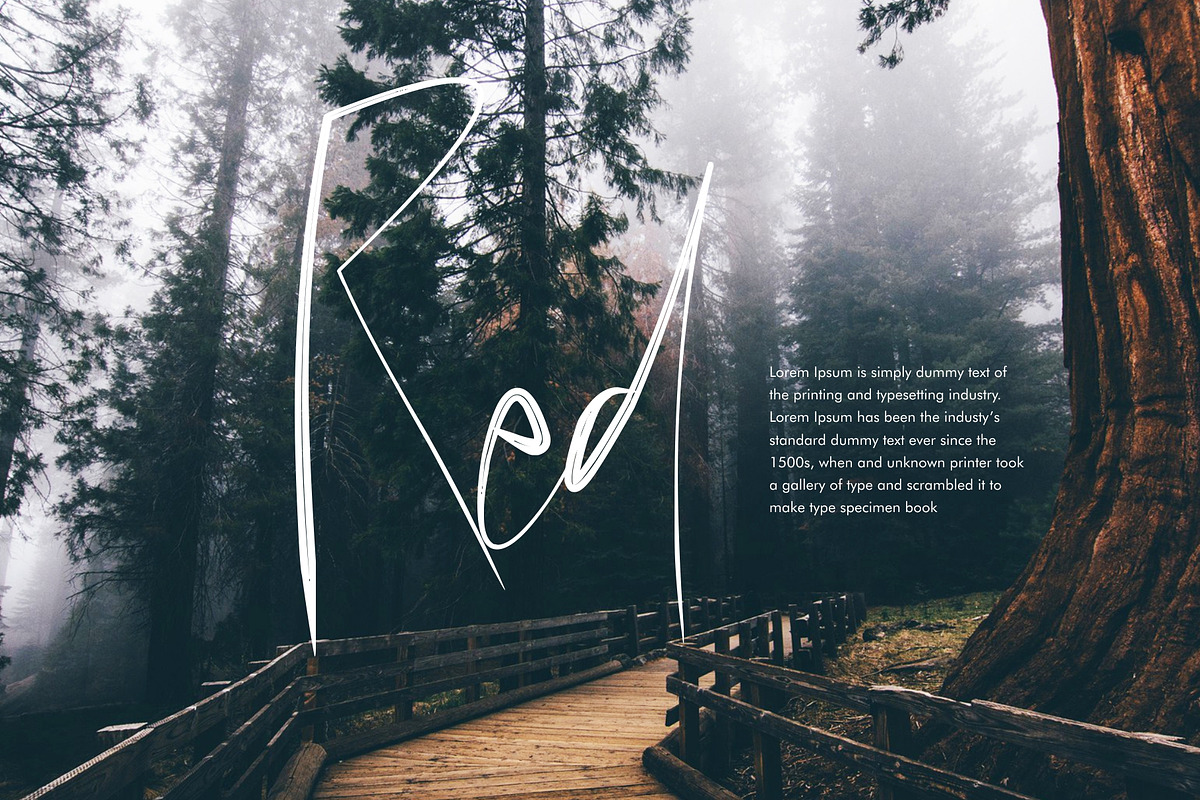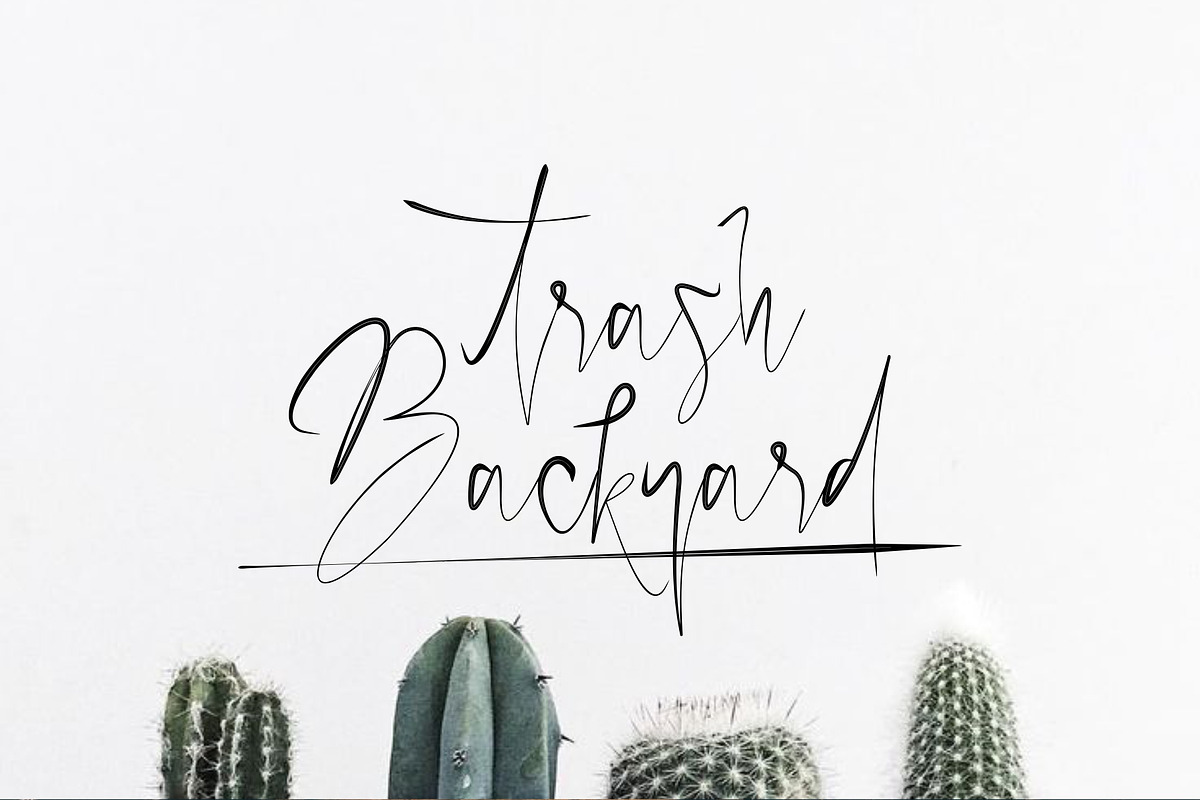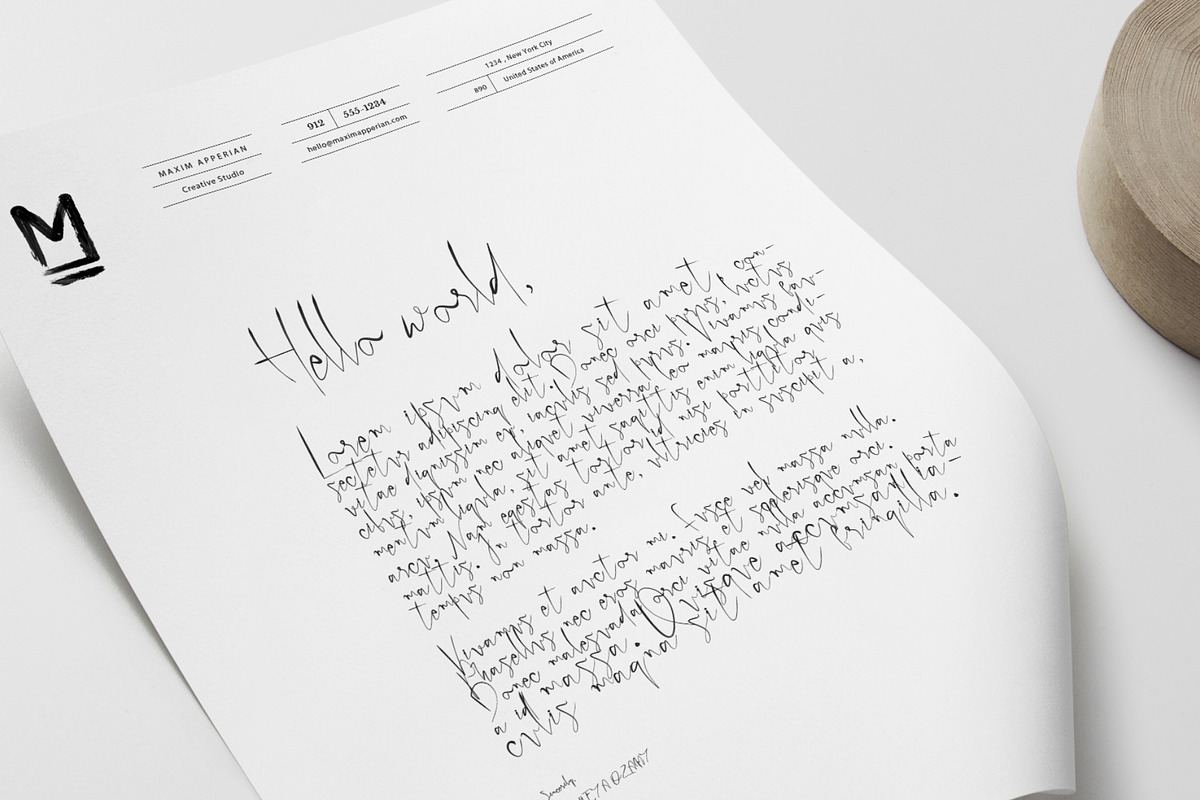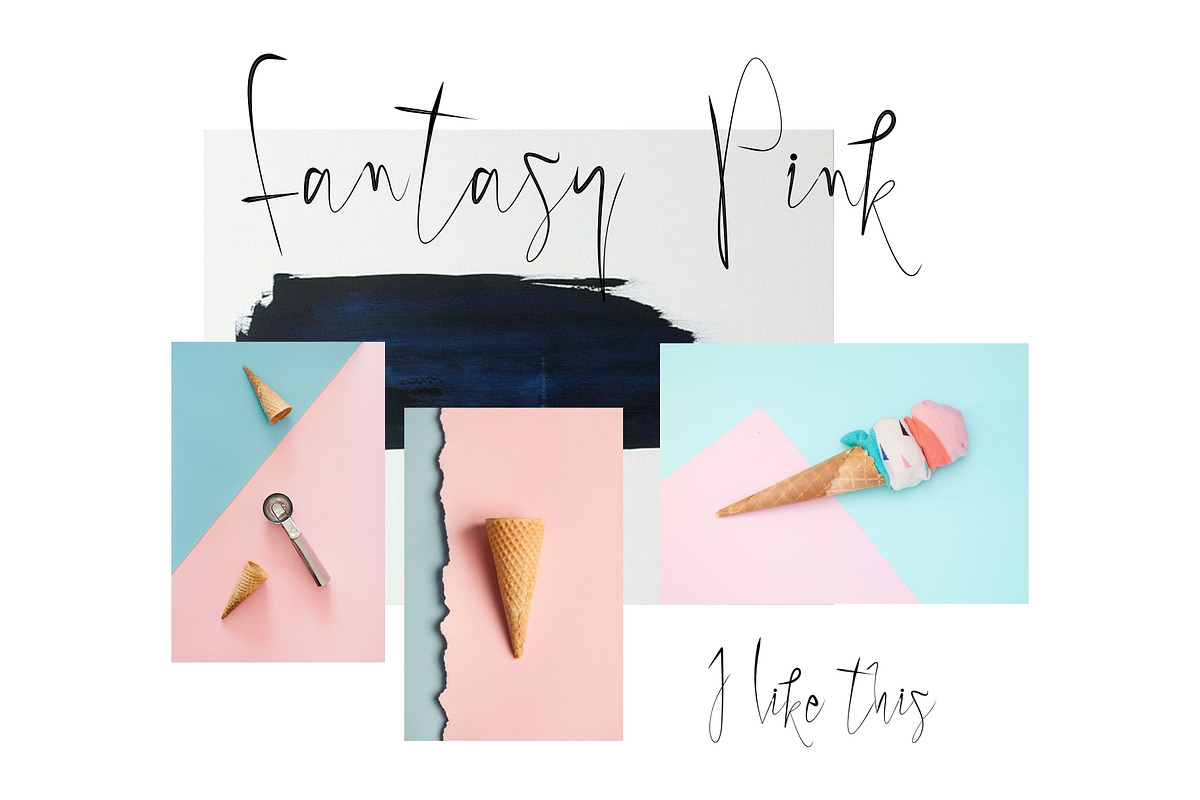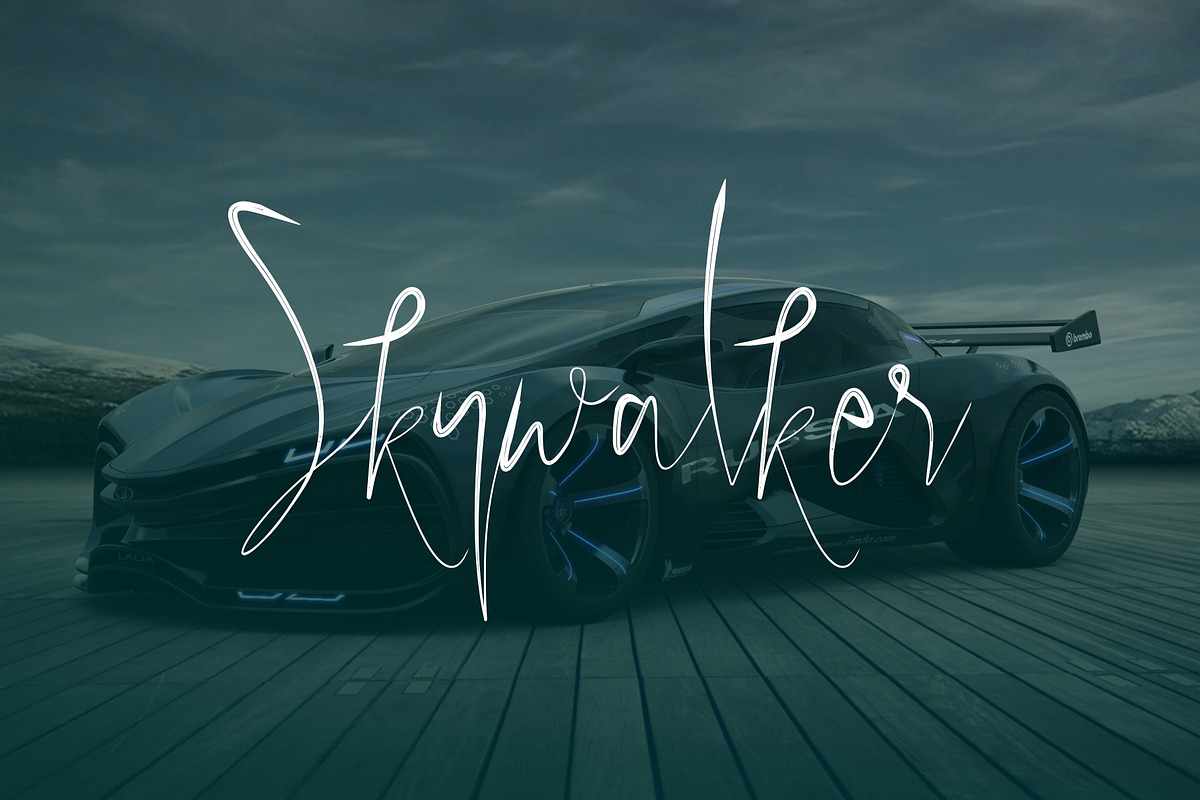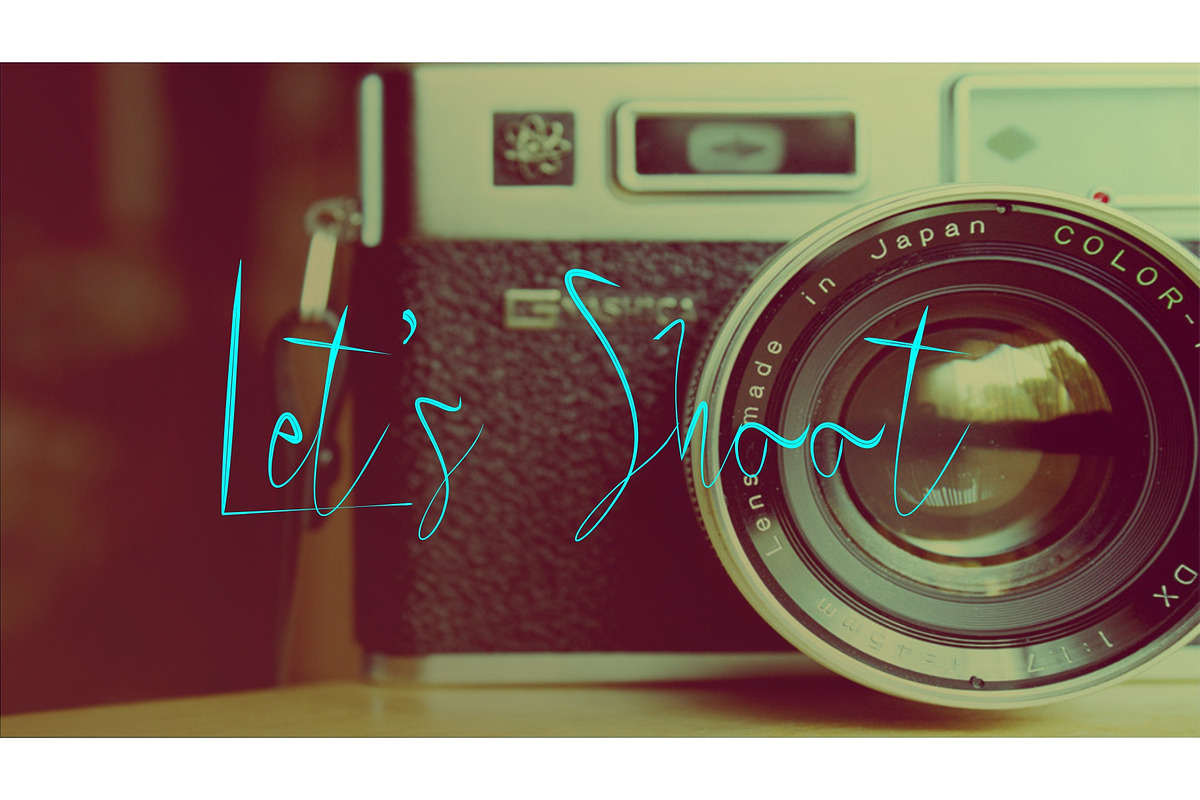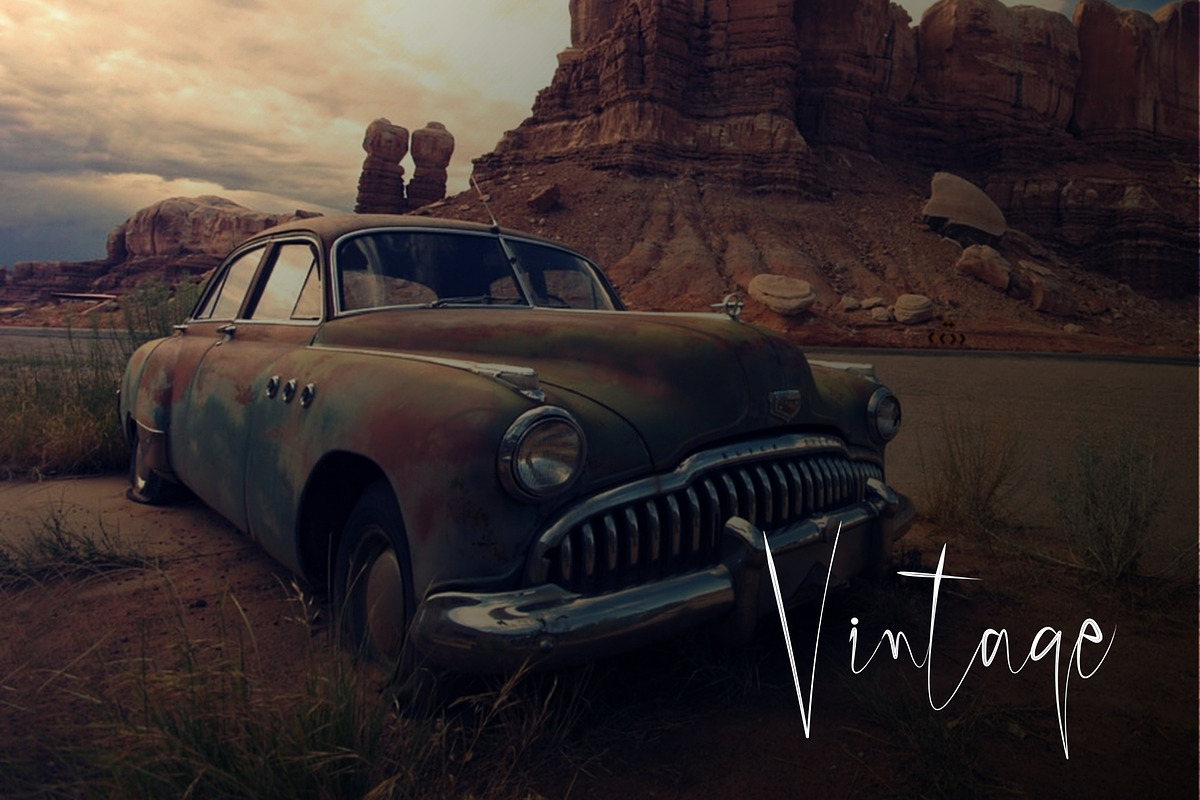
Papies Script Font
Papies, a lovely modern script that bring luxury feel. The natural hand writing script is suitable for you who needs a typeface for branding,headline, logotype, apparel, invitation, punctuations, packaging, advertising etc. This typeface is comes in uppercase, lowercase, symbols & numerals, etc
- The natural hand writing script is suitable for you who needs a typeface for branding,headline, logotype, apparel, invitation, punctuations,
- This typeface is comes in uppercase, lowercase, symbols & numerals, etc Show More
Why Papies Script Font is worth a look
Papies Script Font by Maxim apperian fits naturally into Branding, posters, packaging, typography.